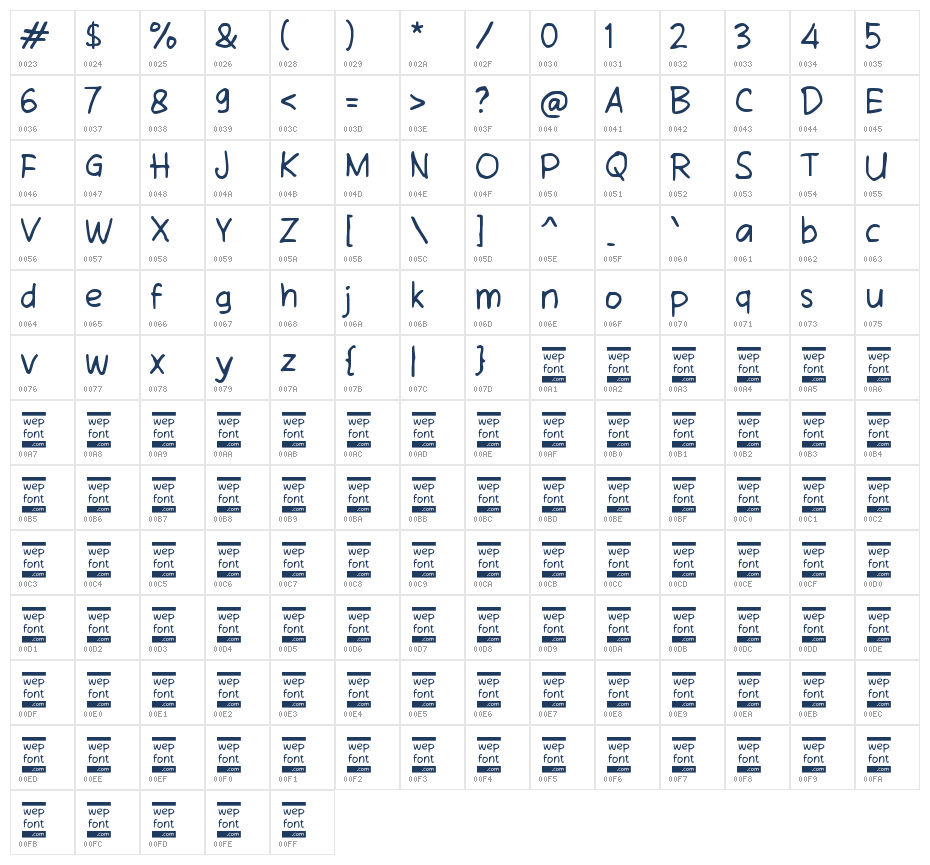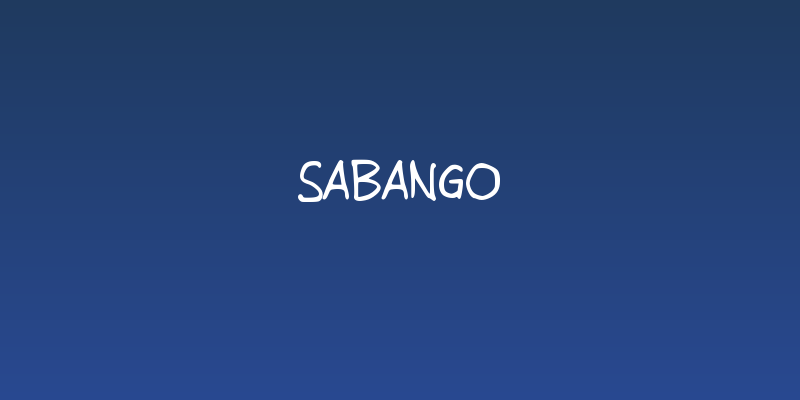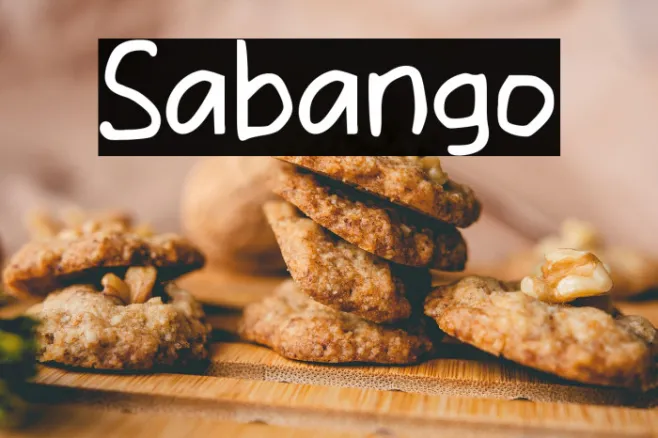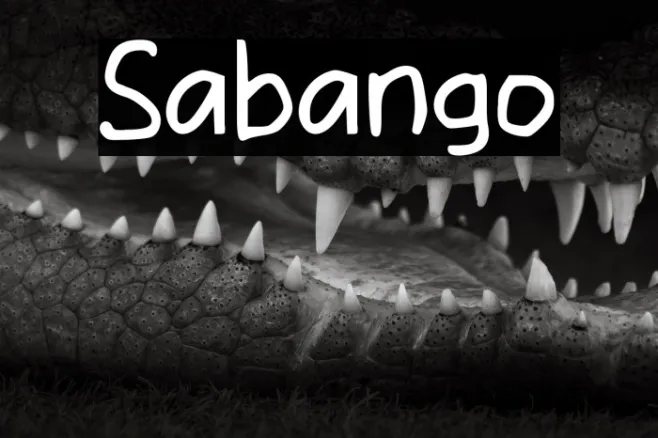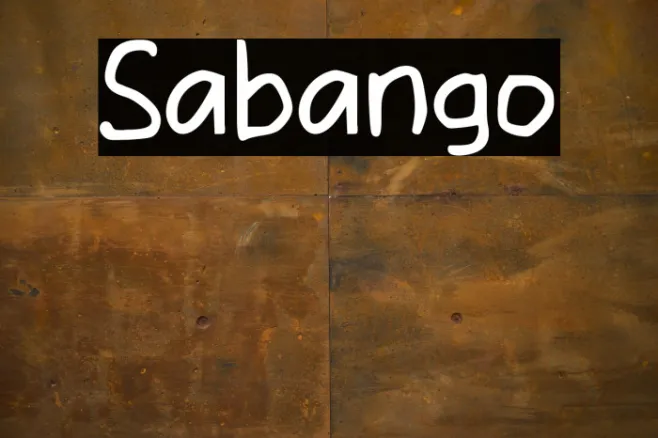
Sabango Font
Sabango Description
A playful, handwritten style font with rounded, casual letterforms and a slightly irregular appearance.
| Use Case | Headlines, Body text, Logos, Children's materials |